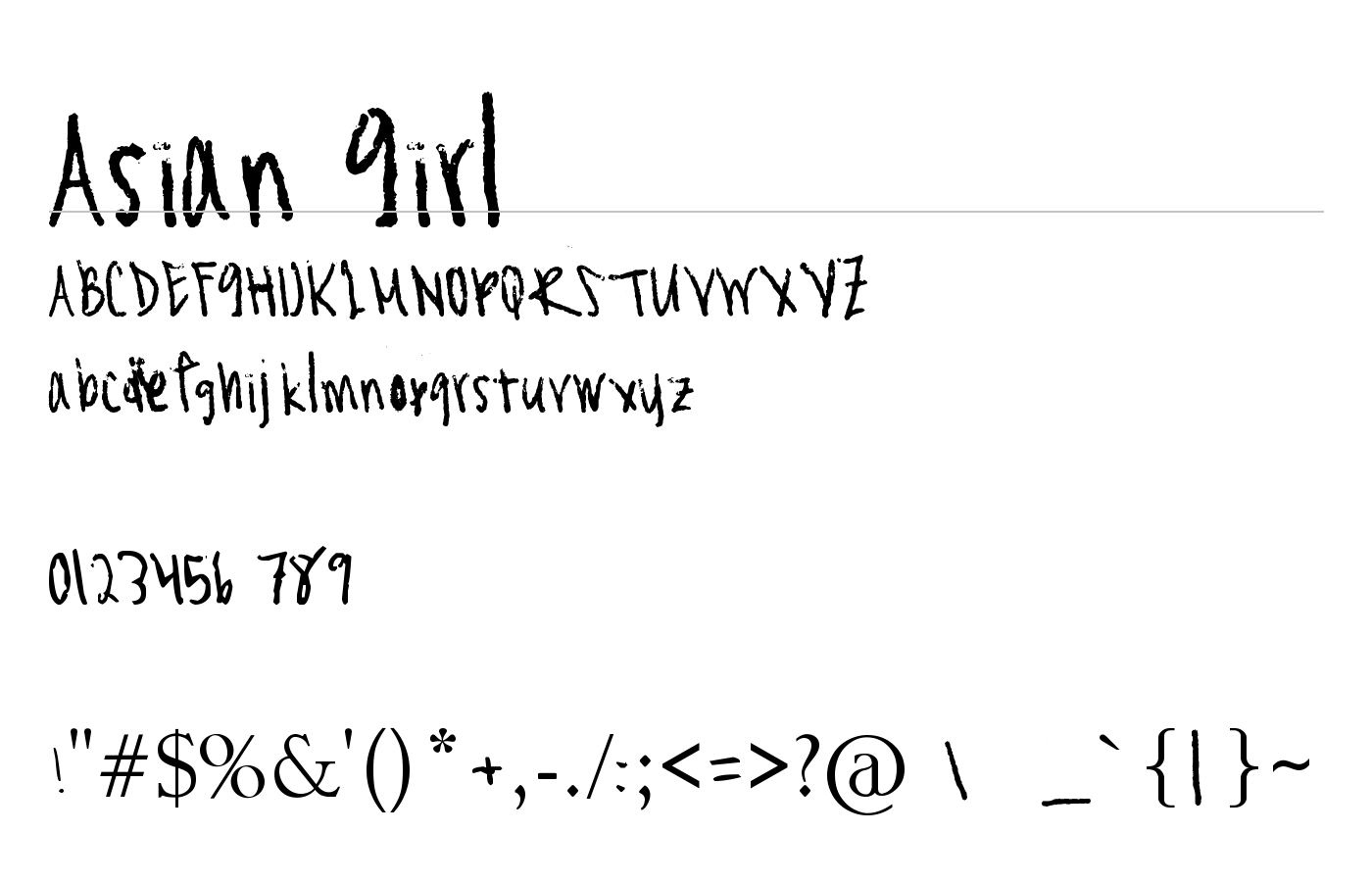
Asian Girl Font is a playful, handwritten-typeface with an organic, slightly rough texture that makes it feel casual and personal. Its tall, narrow letterforms and uneven strokes give it a quirky charm, perfect for creative projects, informal branding, and youth-oriented designs seeking a friendly, approachable vibe. This font works best in headlines, logos, and artistic contexts where a unique, hand-drawn appearance is desired.
Asian Girl Font
About Asian Girl Font